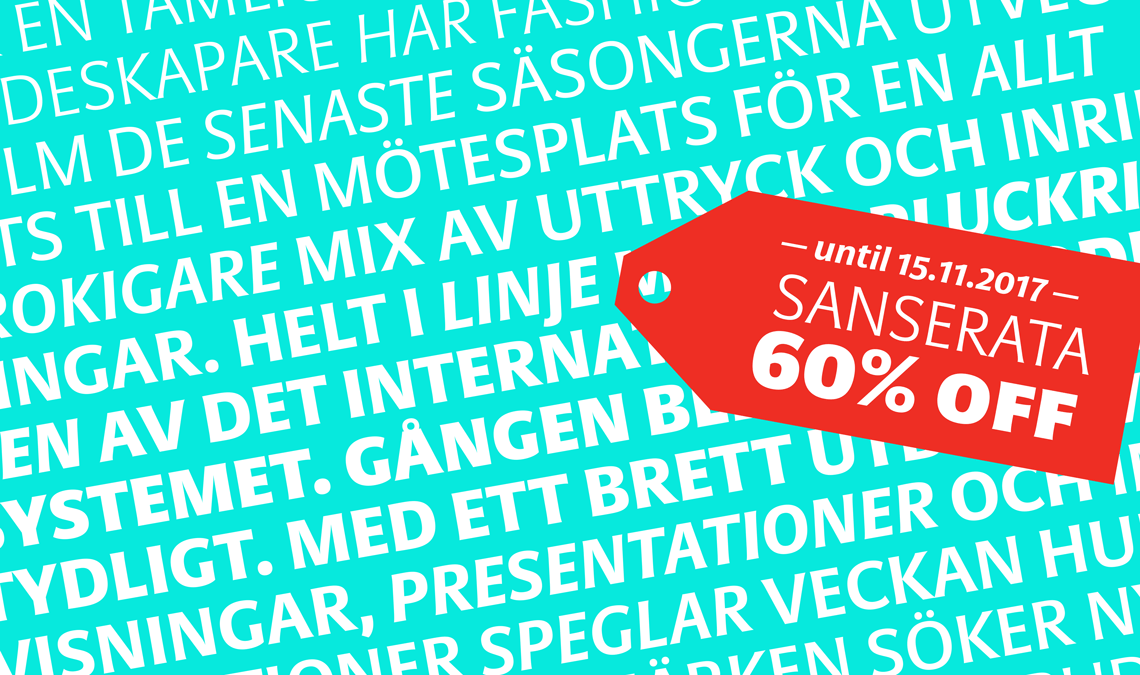
Dr Gerard Unger’s Sanserata is an articulated sans that mirrors Alverata’s creativity and concept. Its bright and unflappable nature make it perfect for positive and casual brands, and its accentuated terminals improve legibility in text.